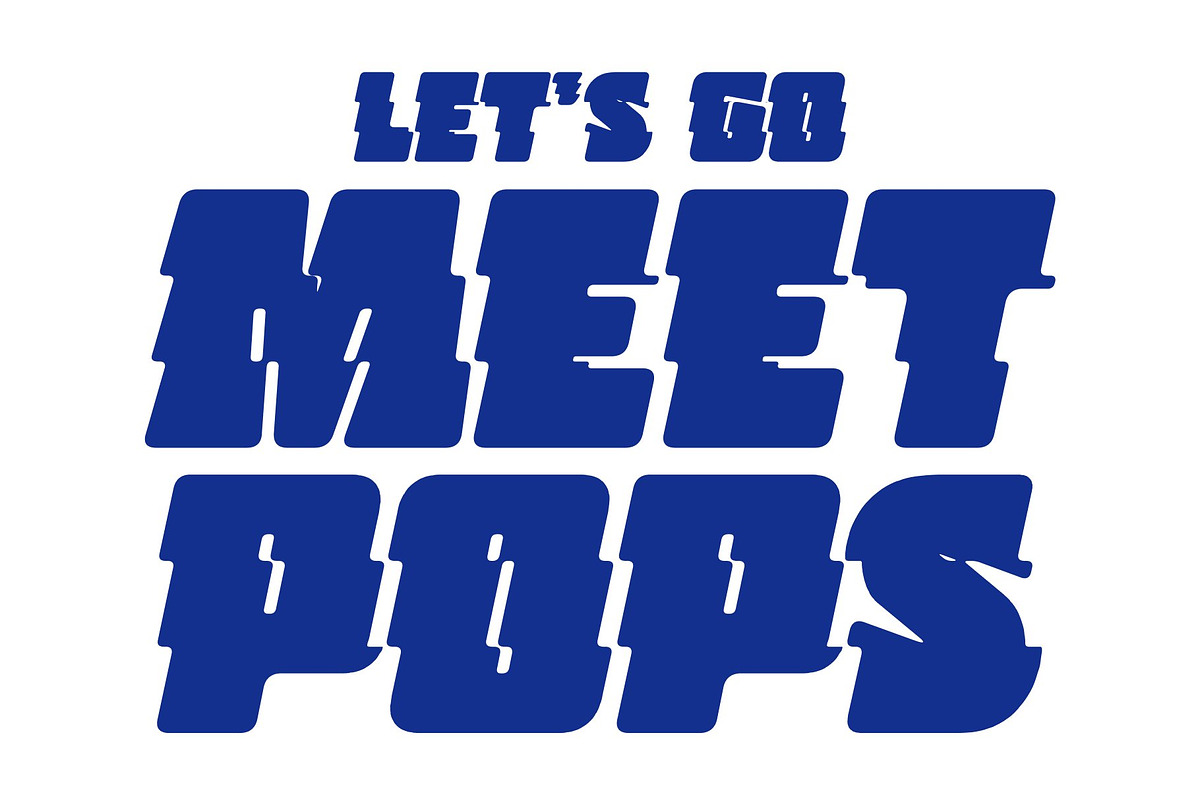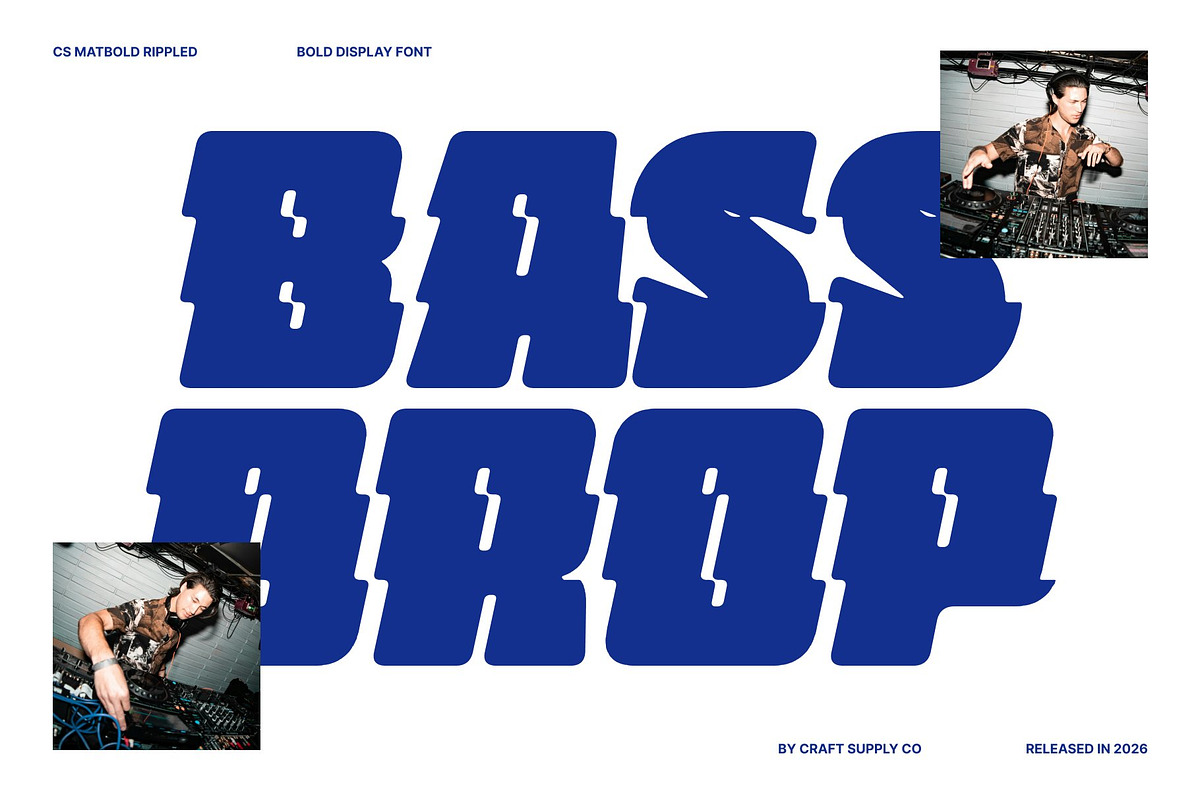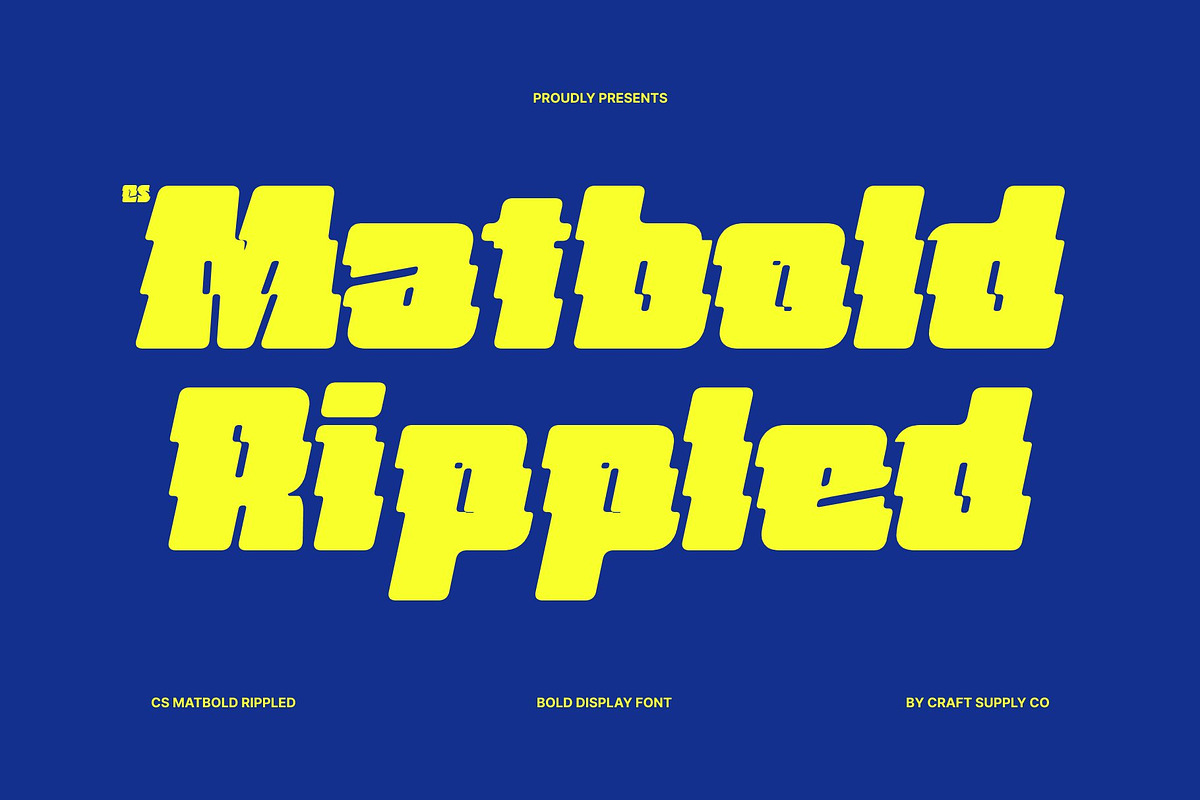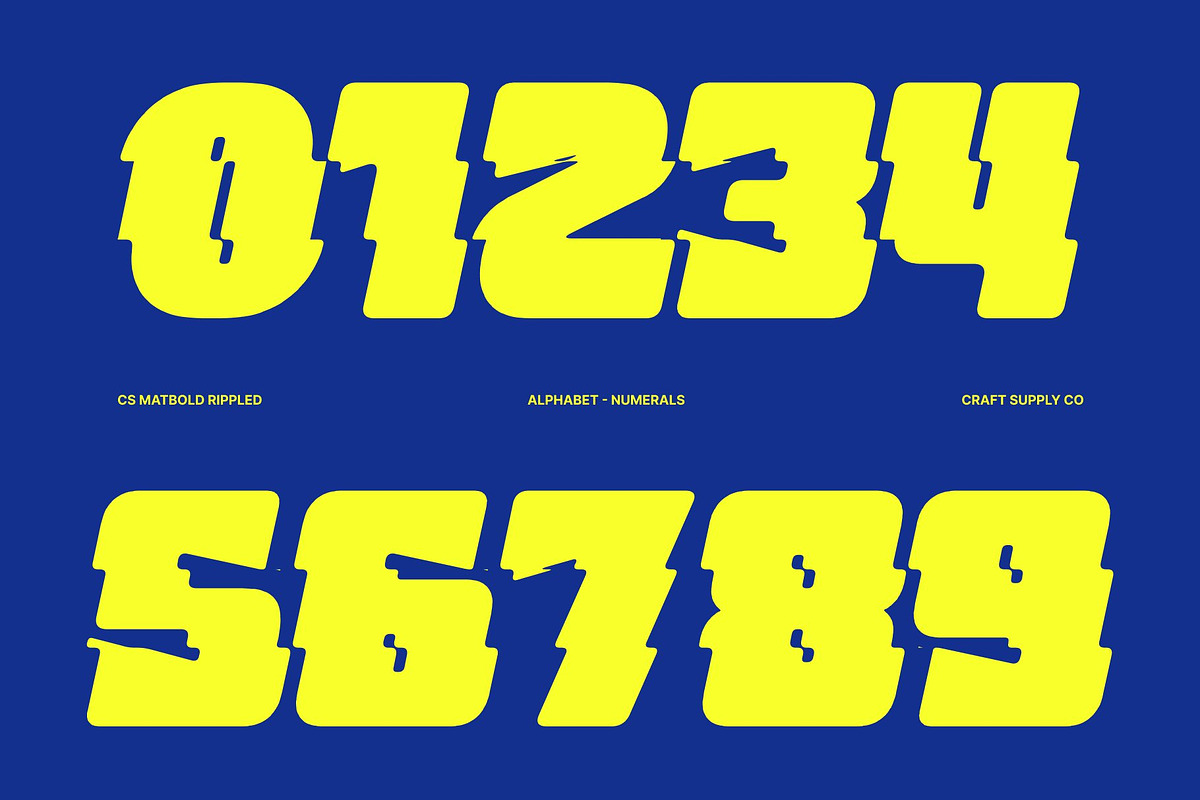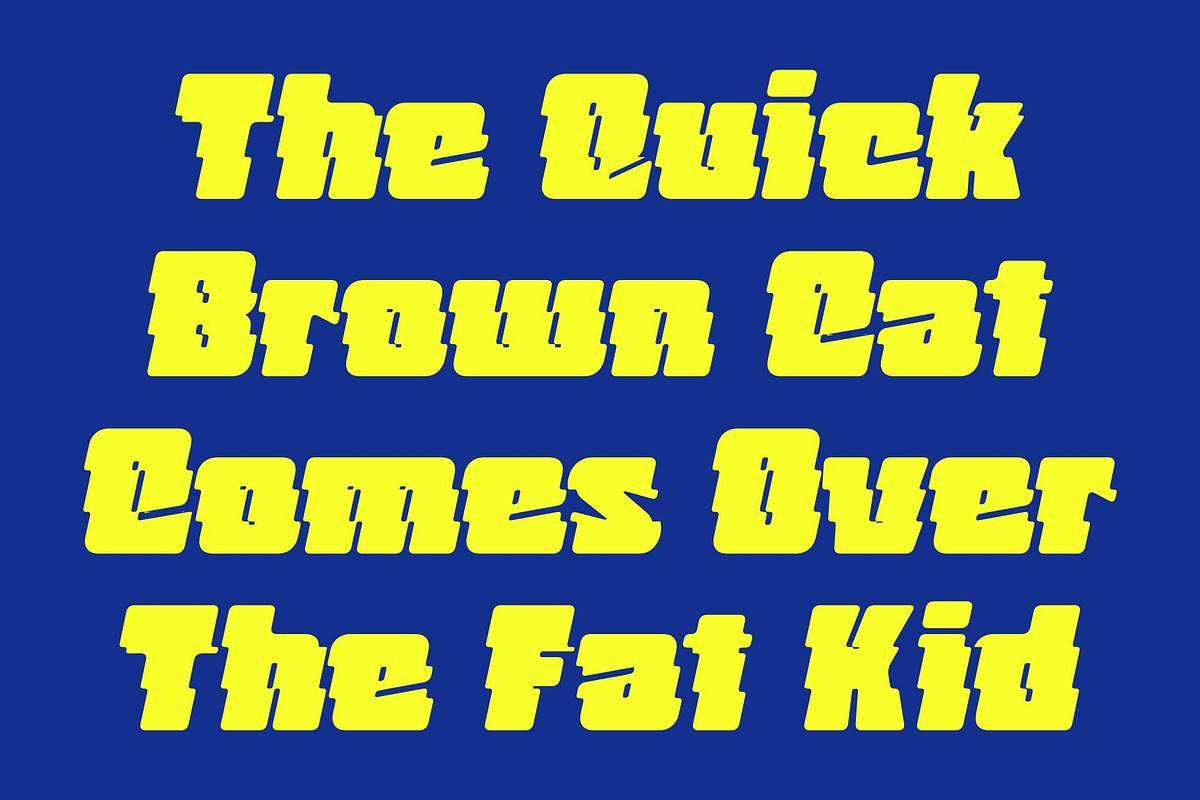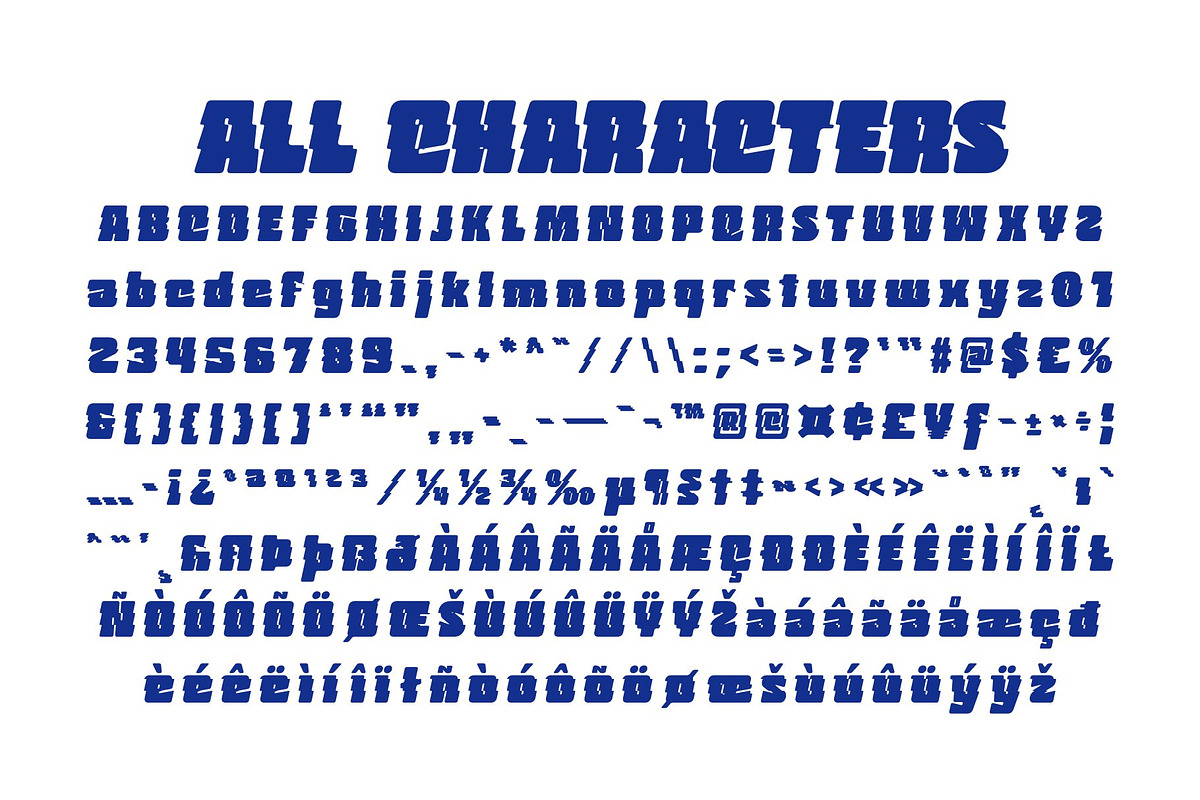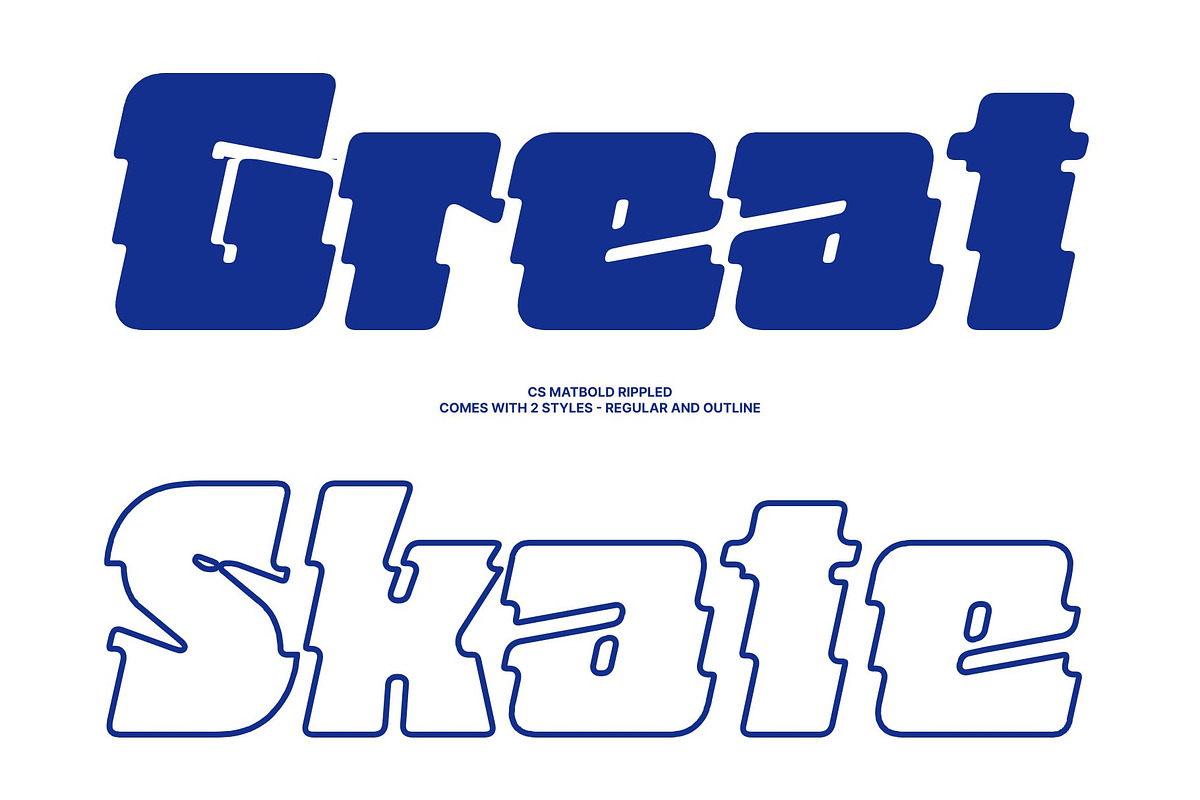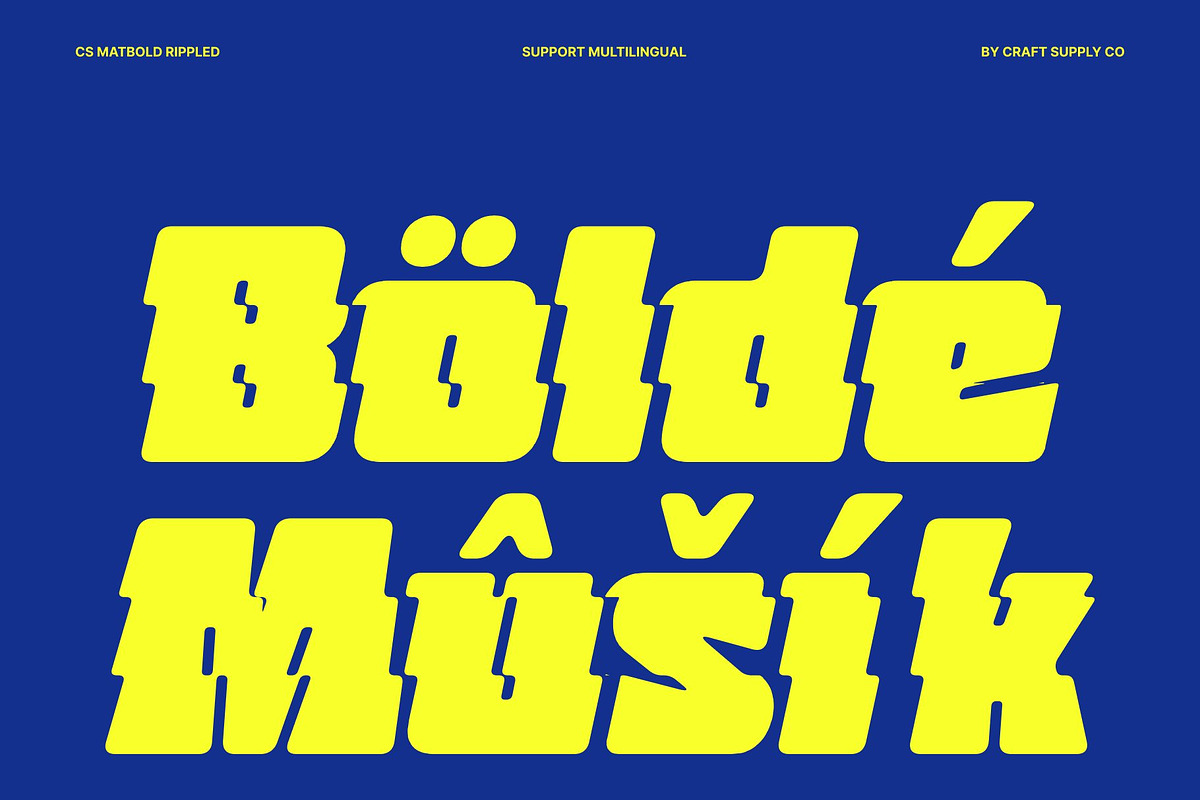
CS Matbold Rippled
CS Matbold Rippled – Futuristic Strength with Liquid Bold Impact
Modern Thick Font with Commanding Presence This is a bold modern sans serif font designed to deliver instant visual authority through its thick and commanding letterforms. Every character is built with strong proportions and confident structure, creating typography that feels powerful, stable, and impossible to overlook. Its heavy construction gives designs a dominant visual voice, making it perfect for projects that require maximum visibility and strong visual identity.
Futuristic Style for Contemporary Visuals With sleek geometric construction and forward-thinking design, this font carries a distinctly futuristic aesthetic. The modern forms create a sense of innovation and technological sophistication, while the clean structure maintains clarity and balance. This fusion of boldness and precision makes the font highly effective for contemporary visual systems that aim to feel advanced, modern, and energetic.
Heavy Weight for Strong Visual Impact The substantial thickness of this font ensures exceptional readability and visual presence even in large-scale applications. Its bold silhouette creates clear hierarchy and instantly attracts attention, making it highly suitable for headlines, posters, and impactful branding materials.
Rippled Effect for Futuristic Fluid Motion The signature rippled distortion introduces dynamic wave-like movement inspired by liquid reflections and digital energy flows. This effect adds depth, motion, and atmospheric intensity to the bold geometric structure, creating typography that feels alive and immersive. Ideal for futuristic branding, music visuals, gaming graphics, event posters, and modern digital campaigns.
CS Matbold Rippled Regular
CS Matbold Rippled Outline